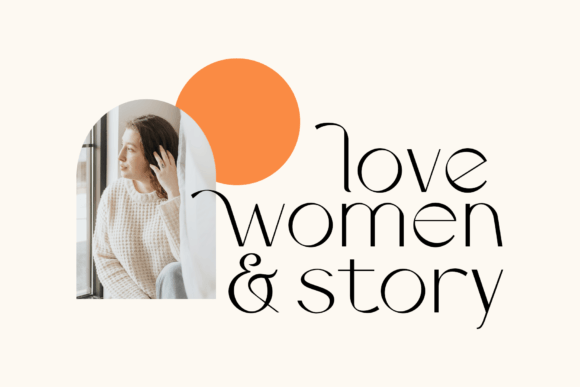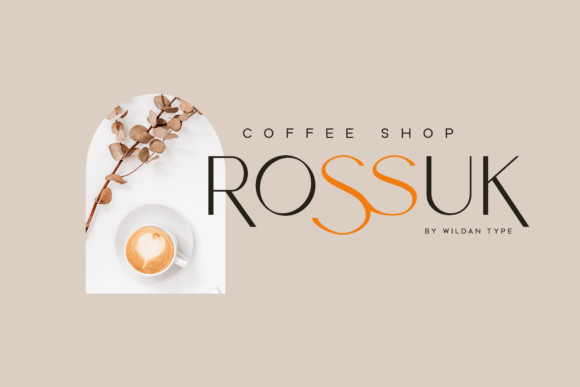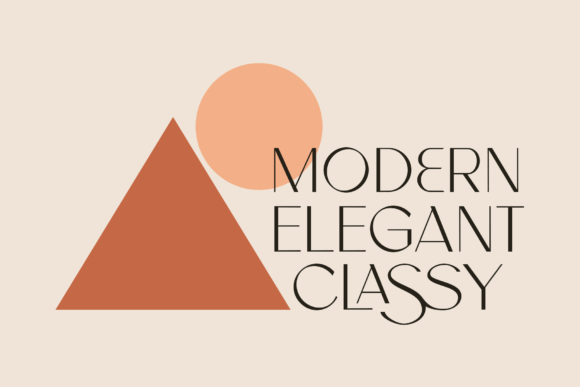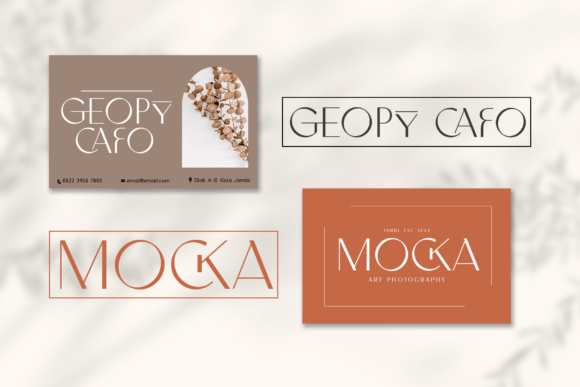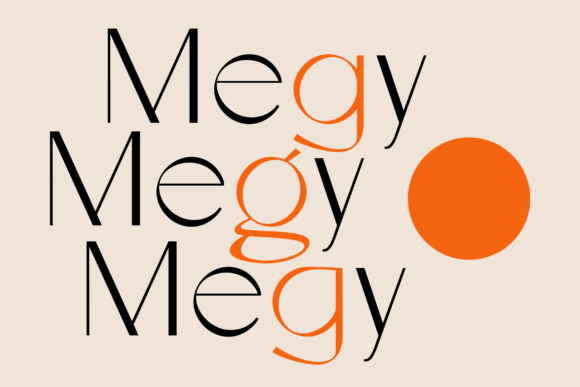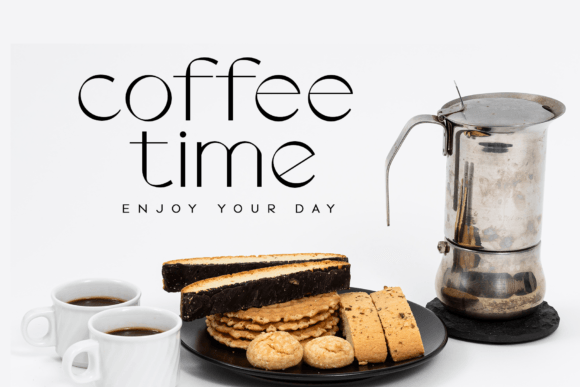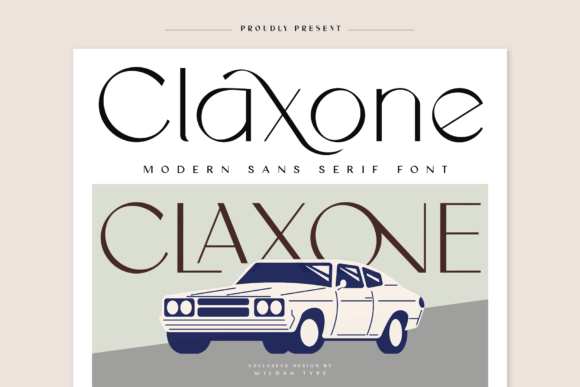
Introducing Claxone Font: Elevate Your Designs with Elegance and Modernity
In the world of typography, a font can make or break a design. For designers and crafters looking for that perfect combination of elegance, modernity, and contrast, Claxone Font is here to revolutionize your creative projects. This stunning sans-serif font is not just a typeface; it’s a statement piece that can elevate your logos, advertising, packaging, book covers, magazines, headings, descriptions, and much more.
What Makes Claxone Font Stand Out?
Claxone Font is designed with a keen eye for detail and a deep understanding of what makes a font truly versatile. Here are some of its standout features:
• Elegant and Modern Design: Claxone boasts a sleek and contemporary look that is instantly captivating. Its elegant lines and curves make it perfect for projects that demand a touch of sophistication.
• Contrasting Style: The font’s contrasting style adds depth and uniqueness to any design, making it pop in a subtle yet powerful way.
• Versatility: Whether you’re working on a logo, an advertisement, a book cover, or a magazine, Claxone Font adapts seamlessly, ensuring your project looks coherent and visually appealing.
Applications of Claxone Font
The versatility of Claxone Font makes it suitable for a wide range of applications. Here are some of the areas where it truly shines:
• Logos: Create memorable and impactful logos that stand out in the crowd with Claxone’s unique and elegant design.
• Advertising: Use Claxone Font to craft compelling and visually appealing ads that grab attention and convey your message effectively.
• Packaging: Elevate your product packaging with a font that exudes modernity and sophistication, helping your product to stand out on store shelves.
• Book Covers: Draw potential readers in with a captivating book cover designed with Claxone Font, perfect for both fiction and non-fiction titles.
• Magazines: Use Claxone for headings, descriptions, and other textual elements to give your magazine a sleek and contemporary look.
Why Choose Claxone Font?
• Unique Aesthetic: Claxone offers a unique blend of elegance and modernity that is hard to find in other fonts.
• High Versatility: Its adaptability across various design projects makes it a valuable addition to any designer’s font library.
Claxone Font is more than just a typeface; it’s a design companion that can elevate your projects to new heights. Its elegant, modern, and contrasting design, coupled with its versatility and user-friendly features, makes it an indispensable tool for designers and crafters. Whether you’re looking to make a statement with a logo, create visually appealing ads, or simply add a touch of sophistication to your designs, Claxone Font is the perfect choice. Add it to your fonts collection today and unlock a world of creative possibilities!